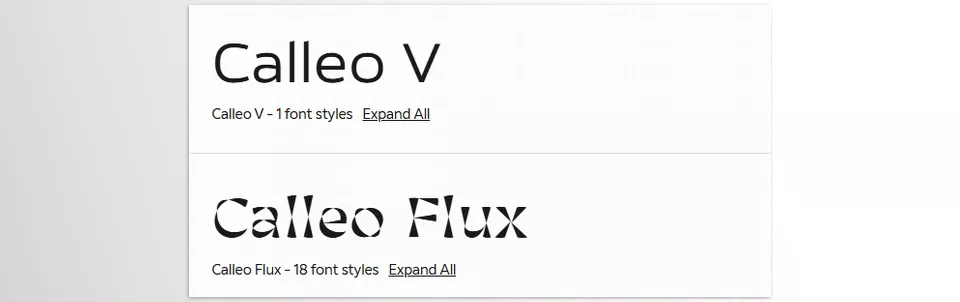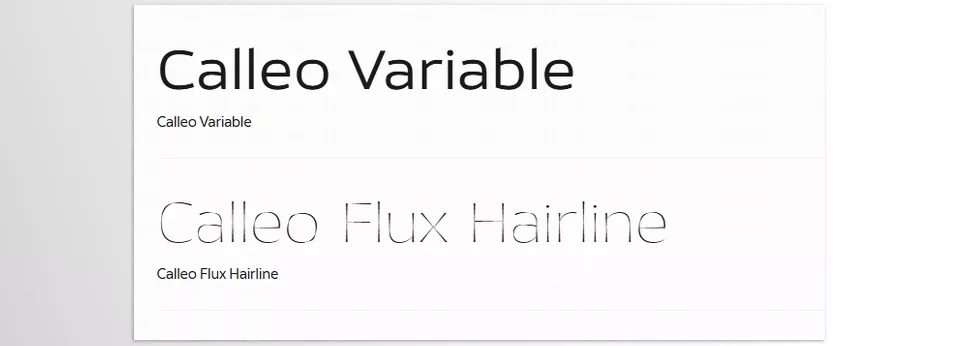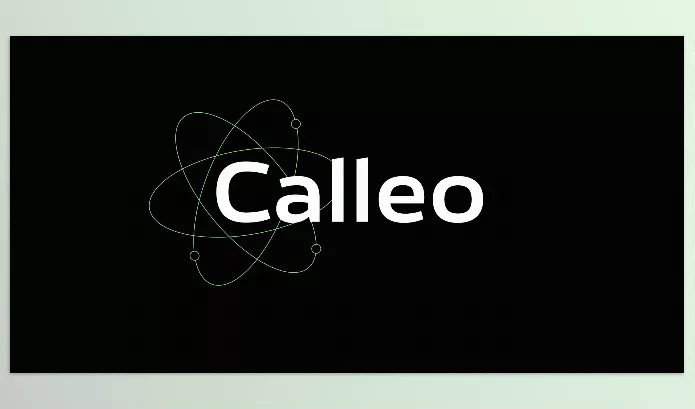
Calleo Font Family is a modern sans-serif type system by Fontfabric tailored to enable functional legibility while retaining expressive versatility. It consists of two styles: one experimental and the other a more neutral, highly legible design ready to be implemented across an array of UI, branding, editorial, and display designs.
Image 1: A refined geometric typeface that balances minimalism with versatility, ideal for editorial and branding design.
Image 2: A creative typographic system with expressive letterforms designed to stand out in digital and print.